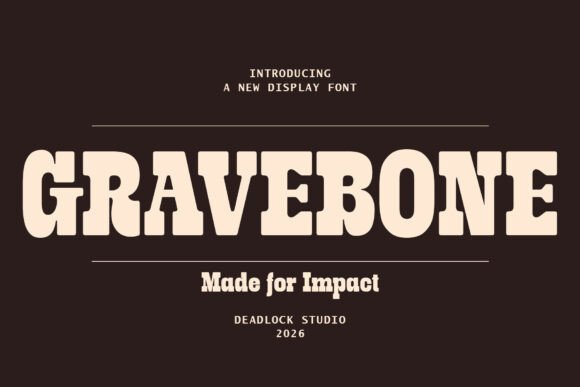
Gravebone: A Monumental Slab Serif for Bold Brand Statements
I opened a fresh brand board last week—no client brief yet, just a quiet afternoon and the itch to test something weighty. I typed “Hearth & Grain” in a placeholder logo box (a local bakery rebrand I’d been sketching), scrolled past my usual go-to serifs, and dropped in Gravebone. Instantly, the letters didn’t just sit there—they anchored. Thick, squared-off serifs. Unapologetically blocky terminals. A structure that feels cast in concrete, not drawn in software. This isn’t a font that whispers. It declares.
What Gravebone Actually Feels Like in Real Work
Gravebone is a display font—and it knows it. Its DNA is industrial: squared shoulders, rigid vertical stress, minimal contrast between thick and thin strokes, and those unmistakable slab serifs—broad, blunt, and deeply intentional. It’s not nostalgic like Rockwell, nor playful like Courier Prime—it’s grounded, architectural, and quietly authoritative. Think of it as the typographic equivalent of exposed steel beams or brushed concrete countertops: honest material, no ornamentation, built to last.
In the bakery project, I used it for the shop sign mockup first. Printed at 36pt on a matte kraft label, it held up beautifully—no blurring, no softening. The weight gave presence without aggression; customers wouldn’t glance and look away. On a folded business card, though, I backed off: Gravebone at 8pt felt dense and hard to parse. That’s not a flaw—it’s a feature. It’s designed for impact at scale, not legibility in tight spaces.
Where It Shines (and Where It Steps Back)
Logo design? Excellent—if your brand voice leans into craft, integrity, or tactile authenticity. I paired Gravebone with a clean, low-contrast sans serif (like Poppins Light) for secondary text, and the contrast worked instantly: one voice solid and declarative, the other calm and functional.
Packaging design? Strong on front panels and jar labels where you need shelf presence. On a small 2oz skincare sample vial? Too much. I switched to its lighter weight (if available) or swapped entirely for readability. Always test at actual size—not just on screen.
Web design and social media graphics? It anchors hero sections and Instagram story headers with real gravitas. But avoid body copy, navigation menus, or caption text. Even at 18px on retina displays, letter spacing needs manual tuning, and line height must breathe generously. Use it for headlines only, and pair it with a highly legible sans serif for everything else.
Editorial or commercial design assets? Use selectively. A poster headline? Perfect. A brochure spread with dense paragraphs? Not ideal. Gravebone commands attention—it shouldn’t compete with content.
Practical Notes From the Design Bench
Font pairing is where Gravebone really earns its keep. It pairs cleanly with humanist sans serifs (like Lato or Nunito) for warmth, or geometric ones (like Montserrat) for sharper contrast. Avoid other slab serifs unless you’re intentionally layering textures—two heavy slabs can feel redundant. A subtle script or handwritten font works well for accents (e.g., “Est. 2021” beneath a Gravebone logo), but keep it light and sparing. No swashes or flourishes unless they’re part of Gravebone’s official alternates—and even then, use one, not all.
A Few Honest Limitations
Gravebone isn’t for every brand. If your client’s voice is airy, minimalist, tech-forward, or traditionally elegant (think law firms or luxury boutiques), this font may read as too literal, too physical. It doesn’t suggest refinement through restraint—it suggests strength through substance. Also, avoid it in long-form digital interfaces: forms, dashboards, or multi-step checkout flows will suffer from visual fatigue.
And while it’s a powerhouse display font, don’t mistake presence for versatility. It won’t replace your workhorse text typeface. It doesn’t need to. Its job is singular: to make a statement so clear and grounded that the viewer feels the weight of intention behind it.
If you’re a designer, freelancer, or small business owner building a brand that values honesty, craft, and tangible presence—Gravebone is worth testing. Drop it into your next logo draft. Try it on a mockup of your product label or café menu header. See how it holds space. Then step back. Does it feel inevitable? Does it match the materiality of what you’re representing? If yes—you’ve found your monument.